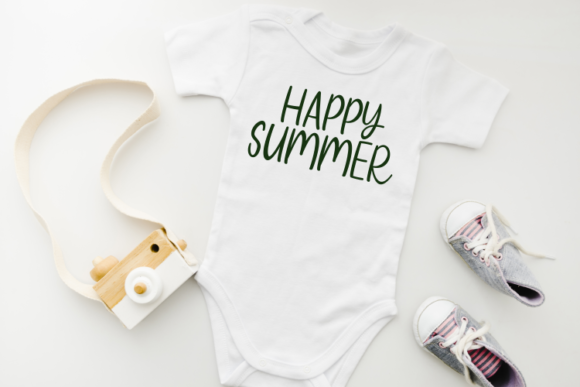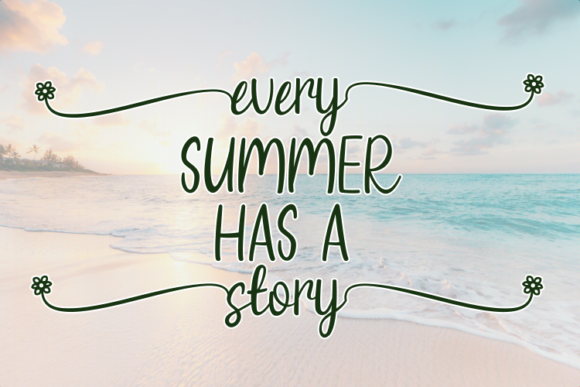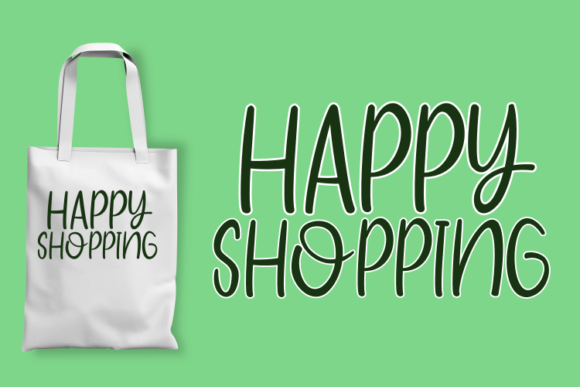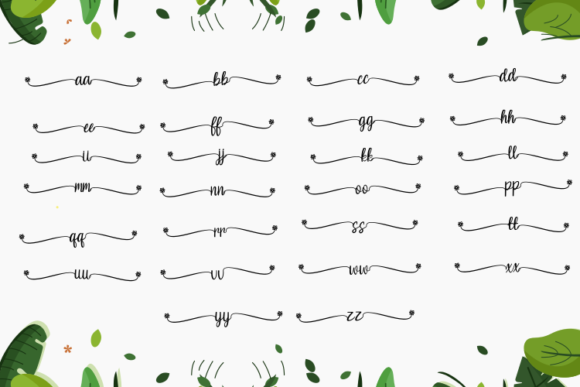
About Summer Yesterday Font
Summer Yesterday is an exquisite handwritten font, masterfully designed to become a true favorite. It maintains its classy calligraphic influences while feeling contemporary and fresh. Fall in love with it and bring your projects to the highest levels!